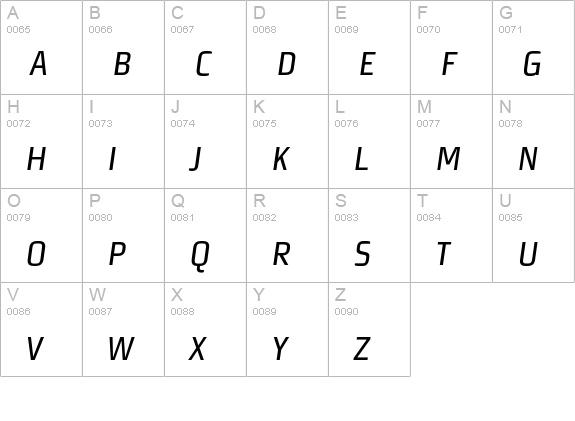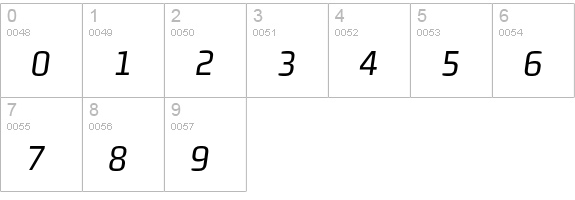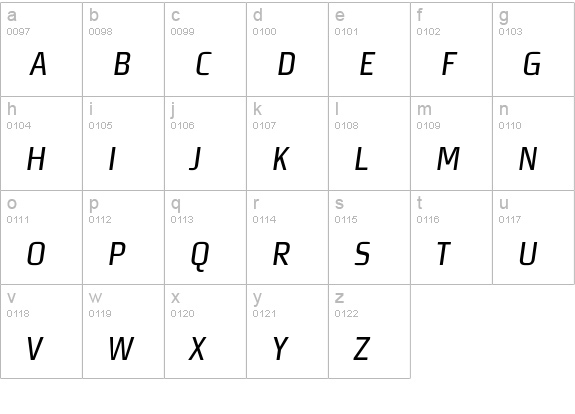
MorganSansCond ItalicCaps Font Details
Introducing MorganSansCond ItalicCaps, a sleek and stylish font that adds a touch of sophistication to any design project. The unique blend of italics and capital letters creates a modern and eye-catching look that is sure to make your text stand out. Perfect for headlines, logos, and other creative applications, MorganSansCond ItalicCaps strikes the perfect balance between elegance and boldness. And the best part? This stunning font is available for free download at FontsMarket.com! Whether you are a designer looking to enhance your projects or a business owner seeking a fresh new look for your branding, MorganSansCond ItalicCaps is the perfect choice. Don't miss out on the opportunity to elevate your designs with this versatile and dynamic font. Download MorganSansCond ItalicCaps today and let your creativity shine!